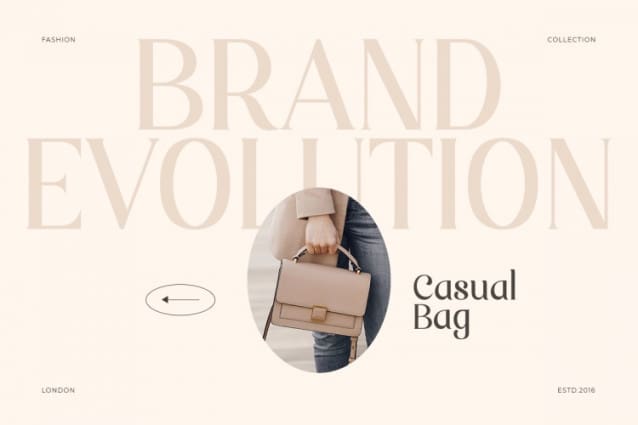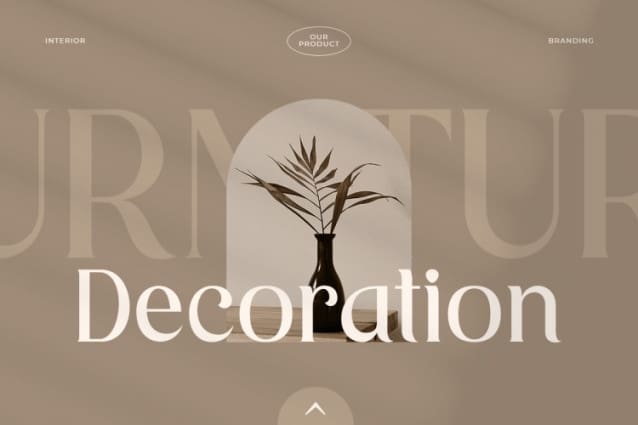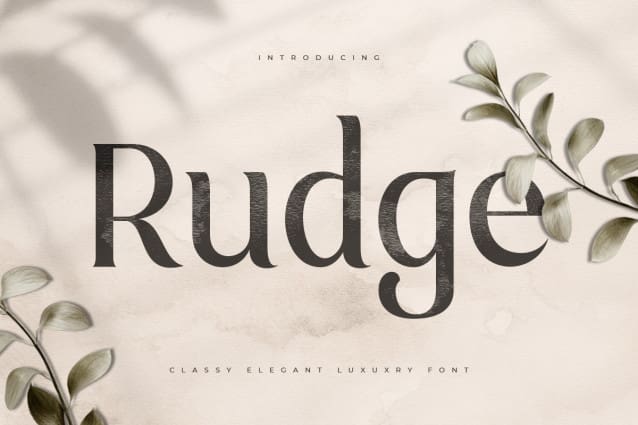
Rudge Font
Rudge Font A Modern Classy Elegant Luxury font that we created special for elegant branding needs, with unique shape will be ready to add value of your brand. It so nice to leverage designer or product owner that need solutions to make their design look more stylish and modern. And specially for Rudge font, We prepared any characters to help you create unlimited variations for your creative needs.